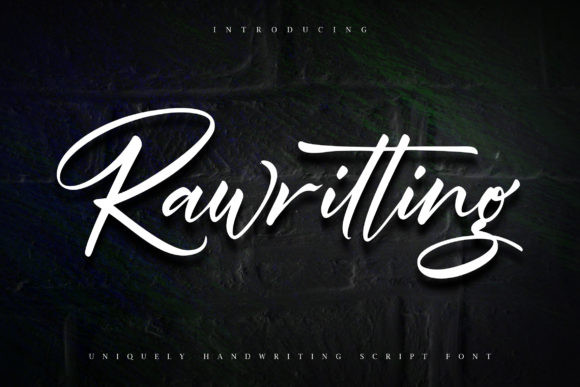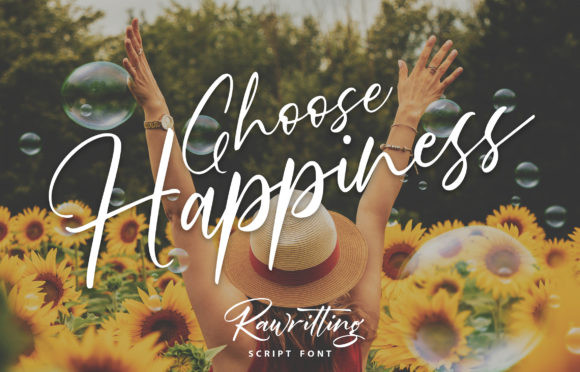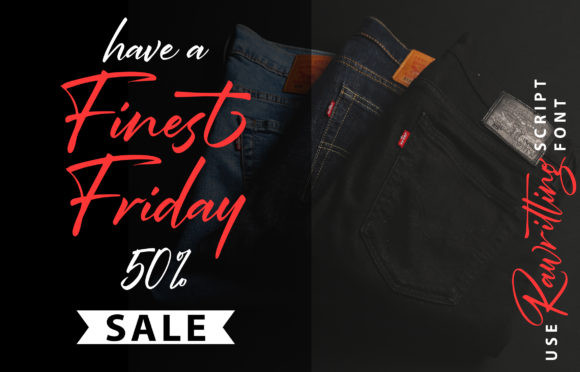
Rawriting Font
Rawriting feels equally charming and elegant. This stunning handwritten font is a stylish homage to classic calligraphy. It features a varying baseline, smooth lines, gorgeous glyphs and stunning alternates.